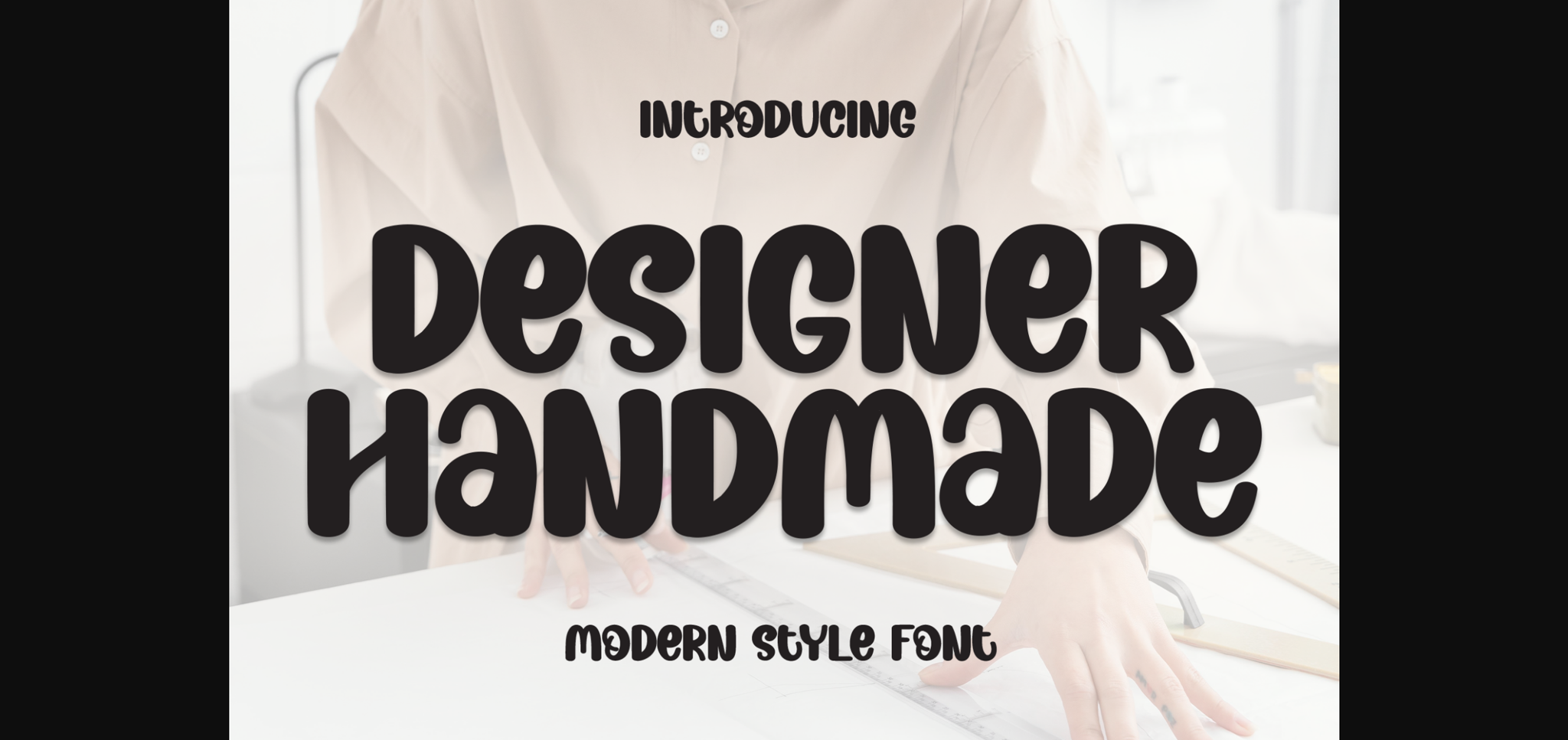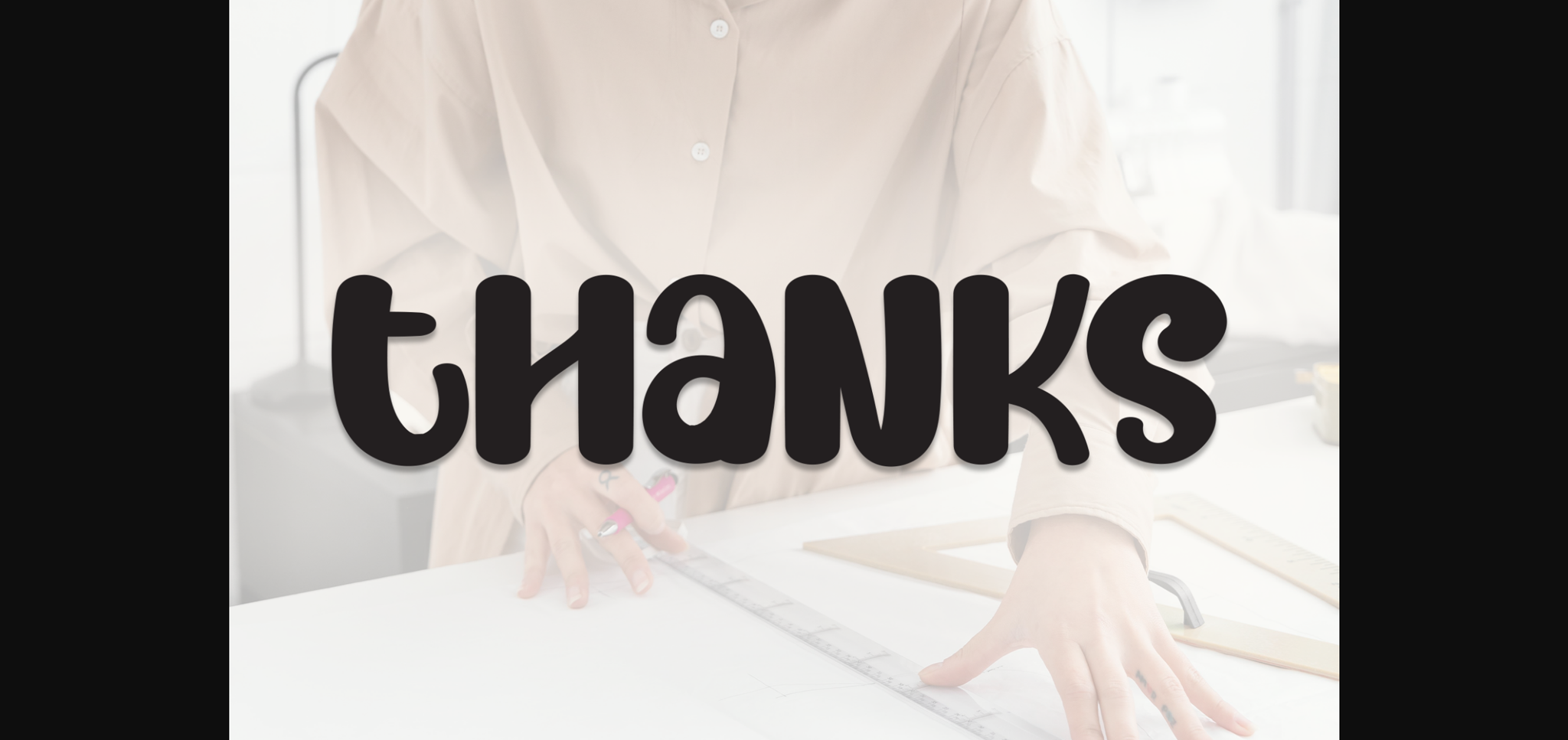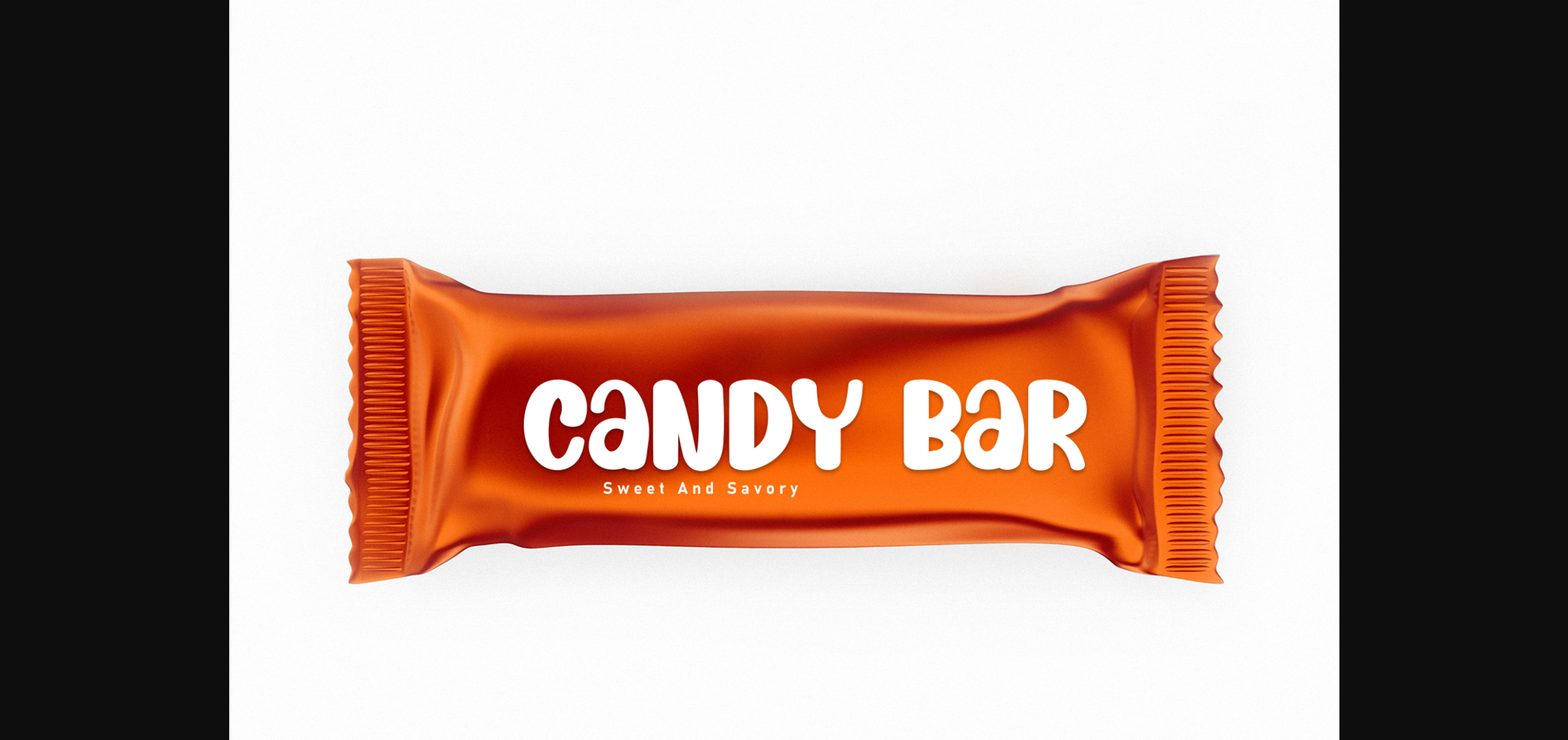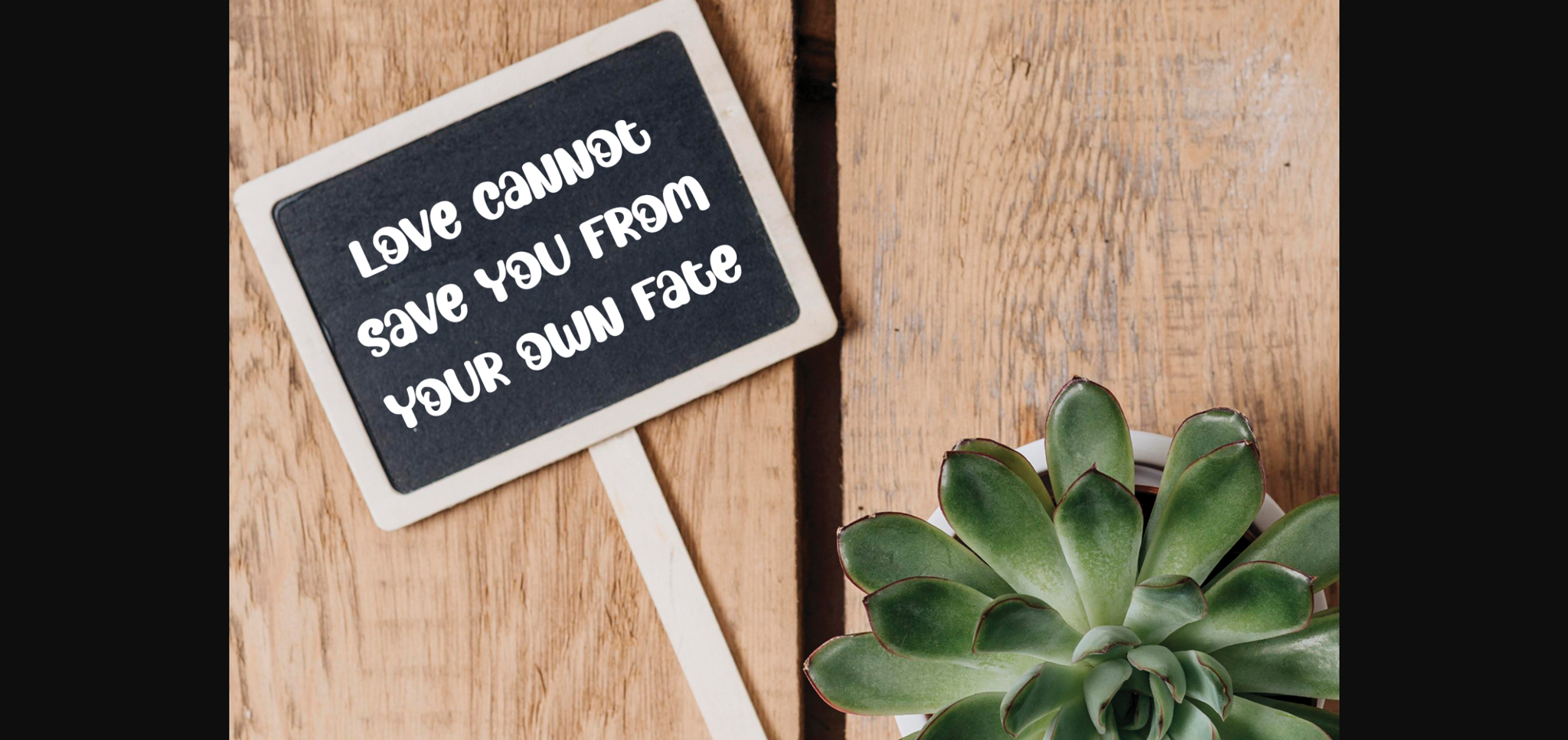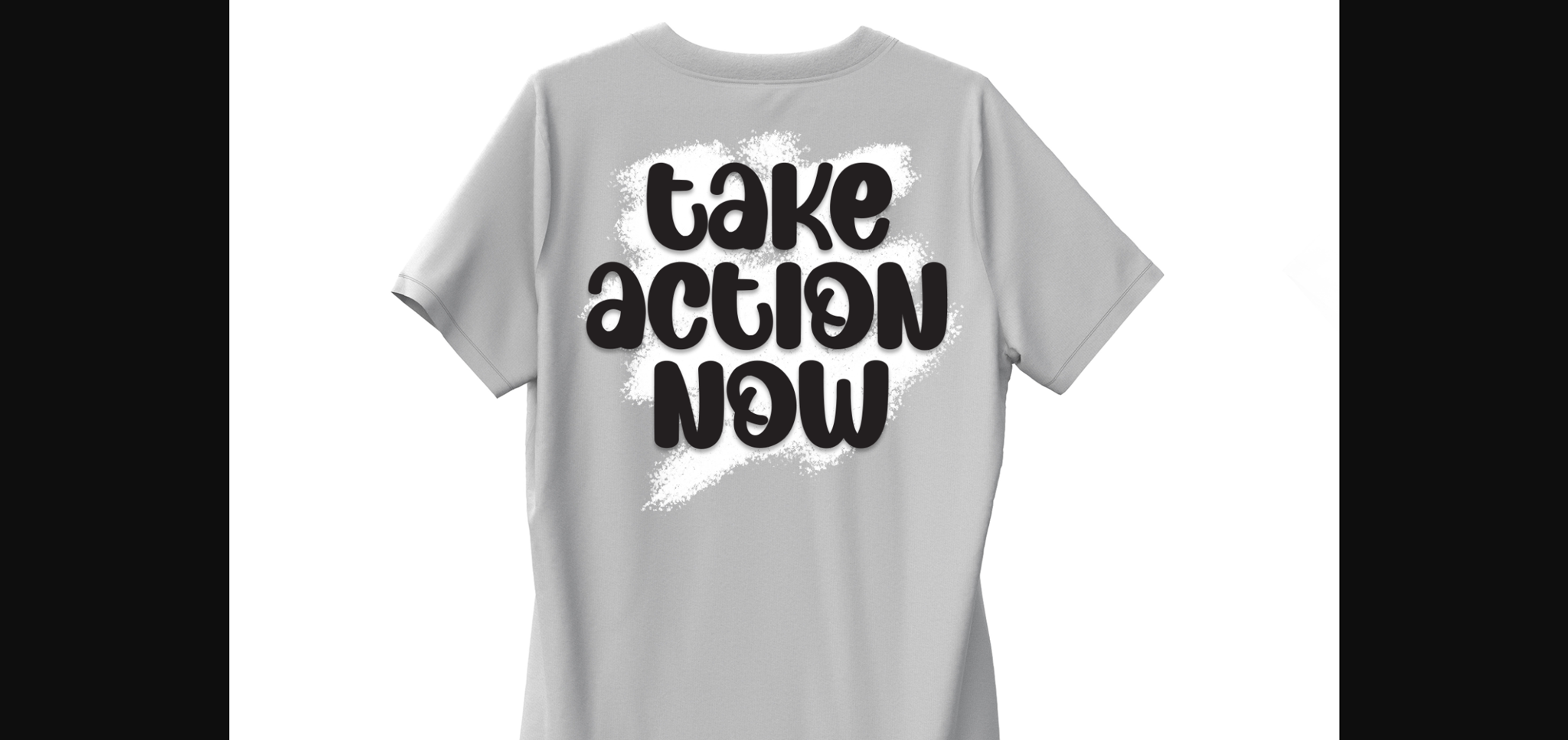
About Designer Handmade Font
Designer Handmade is a neat and casual sans-serif font that combines simplicity with a touch of warmth. With clean lines and balanced proportions, it exudes a friendly and approachable vibe. Perfect for various design projects, Designer Handmade brings a modern and versatile style to your typography repertoire.